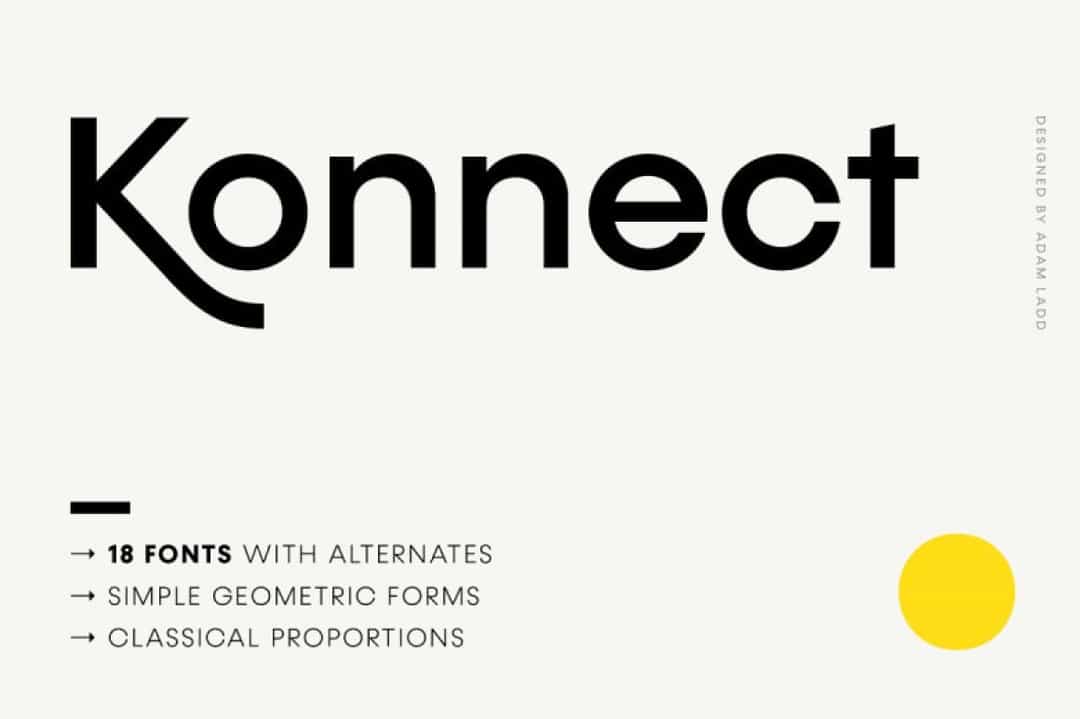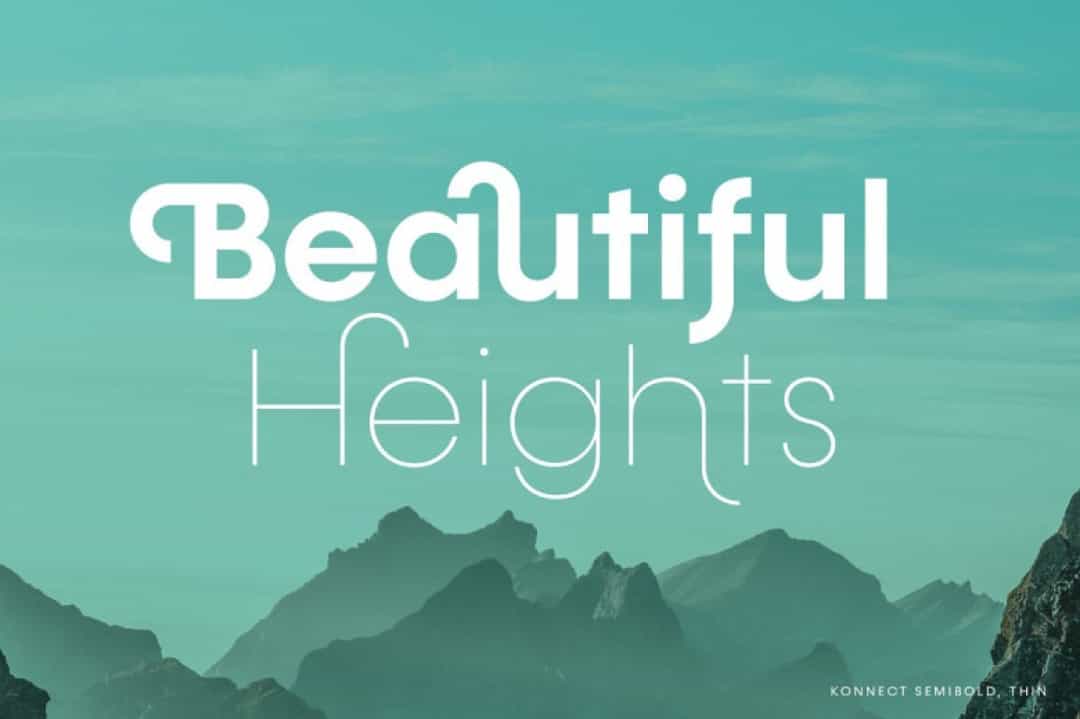
Konnect Font is an abstract sans serif font family with the perfect combination of modern traditional, classic and fun features. It features elegant shapes and proportions inspired by classical architecture to give an aesthetically pleasing aesthetic with visually stimulating rhythm. Large x-heights, shuttered apertures and horizontal/vertical terminals add even more distinction when setting display settings – not to mention colorful swashes that come in various color choices as well as stylistic alternatives and arrow icons available to further improve typography!